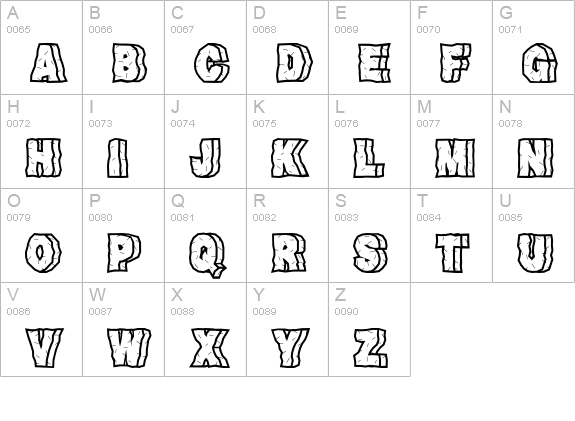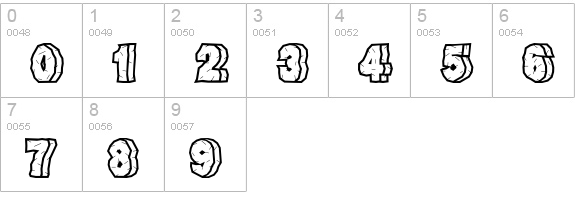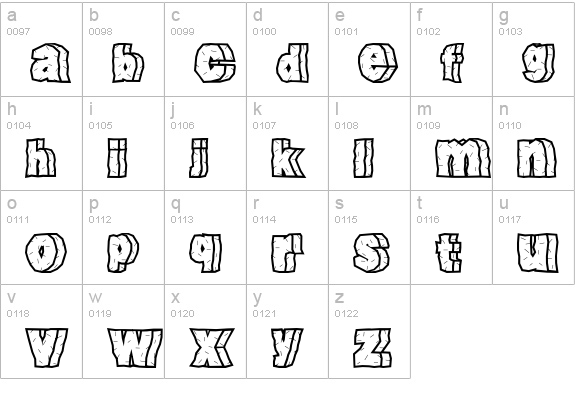
RockFont Font Details
Introducing RockFont, a captivating and bold font that will make your designs stand out from the crowd. This unique typeface combines the strength and elegance of rock music with a modern twist, creating a stunning visual experience for your audience. RockFont is meticulously crafted with meticulous attention to detail, ensuring each letter is perfectly balanced and harmonized. Its strong and confident strokes exude power and energy, making it perfect for headlines, logos, posters, and album covers. With its versatility, RockFont can easily adapt to any design project, whether it's a vintage concert poster or a contemporary branding campaign. But what sets RockFont apart from the rest is not just its striking aesthetics, but also its accessibility. We believe that great design should be accessible to all, which is why RockFont is freely available to download at FontsMarket.com. This means that you can effortlessly incorporate this captivating font into your projects without breaking the bank. Whether you're a graphic designer, a musician, or a creative enthusiast, RockFont will undoubtedly elevate your designs to new heights. Its edgy and rebellious nature will infuse your work with a sense of attitude and style, ensuring that it leaves a lasting impression on your audience. So why wait? Download RockFont today and unleash the power of rock in your designs. Let the boldness and energy of this font take your creativity to the next level. With RockFont, you have the freedom to express yourself and make a statement like never before. Get ready to rock the design world with this extraordinary typeface, available for free at FontsMarket.com.